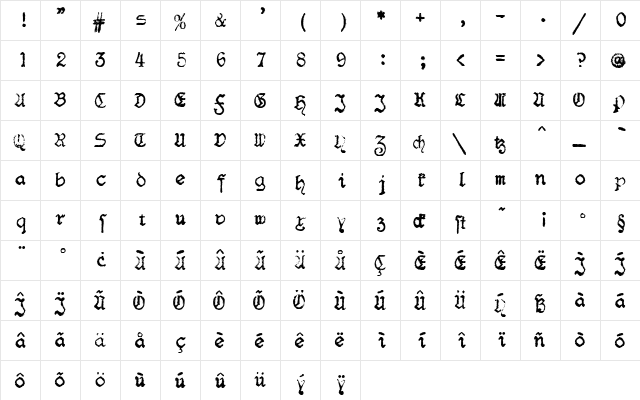
F25 BlackletterTypewriter Regular
| Foundry | Volker Busse, Berlin |
| Designer | Volker Busse, Berlin |
Design Context for F25 BlackletterTypewriter Typeface
F25 BlackletterTypewriter draws on the rich tradition of blackletter calligraphy, with dense, angular strokes that evoke medieval manuscripts and old-world craftsmanship.
Well-suited to band logos, craft beer branding, tattoo lettering, and heritage-themed identities.
Font Pairing: Pair with a clean neutral sans-serif for body copy to let F25 BlackletterTypewriter's character lead without overwhelming the composition.
Pro Tip: Use F25 BlackletterTypewriter sparingly at large sizes. Even a single word set in blackletter can define the visual register of an entire design.